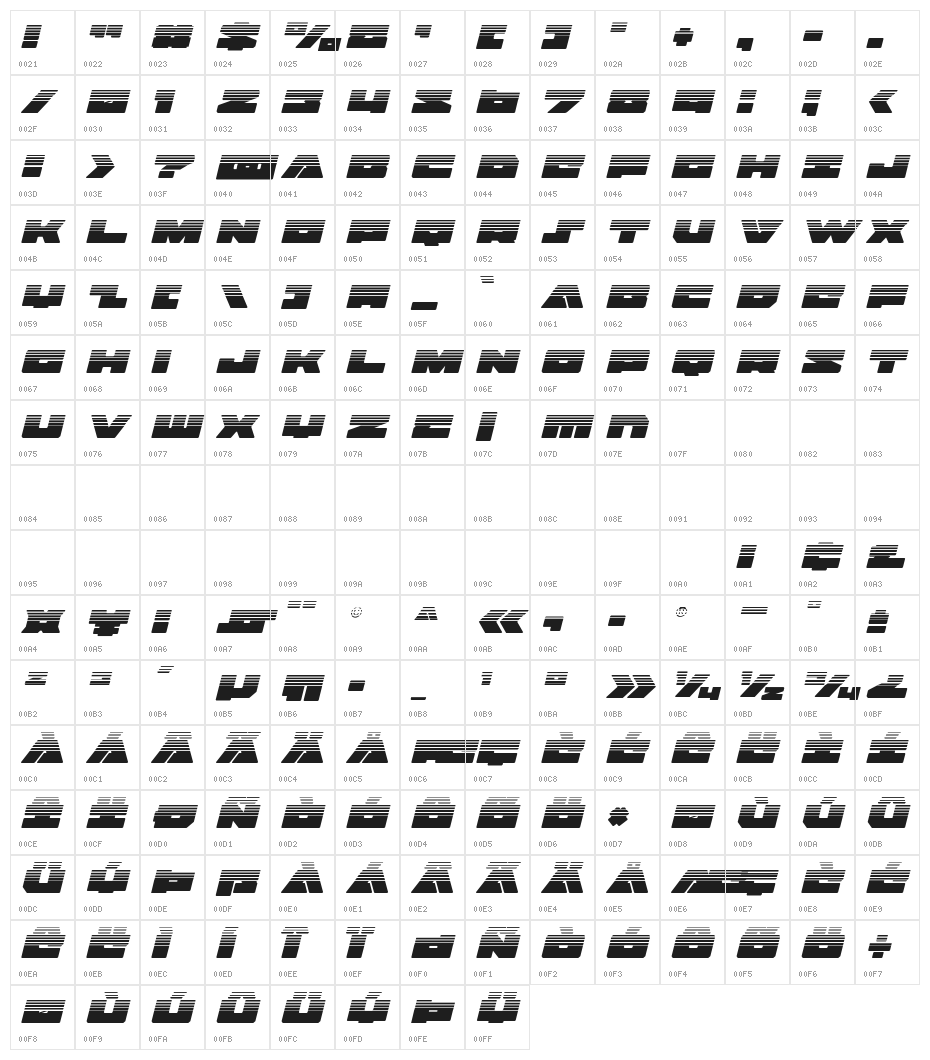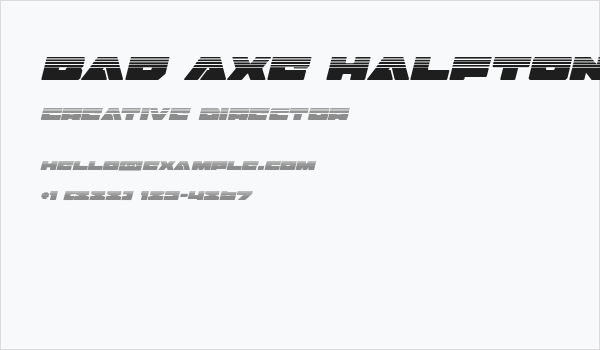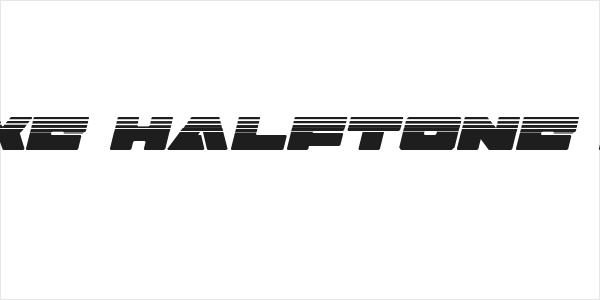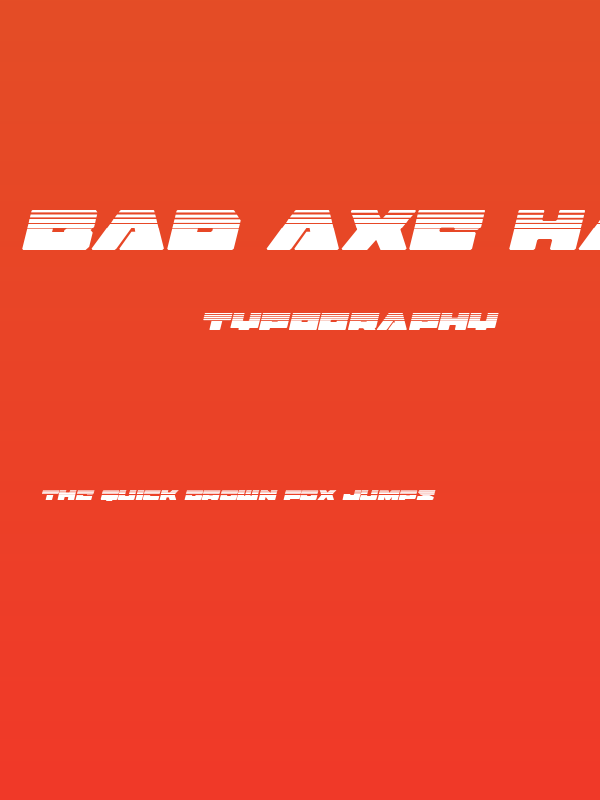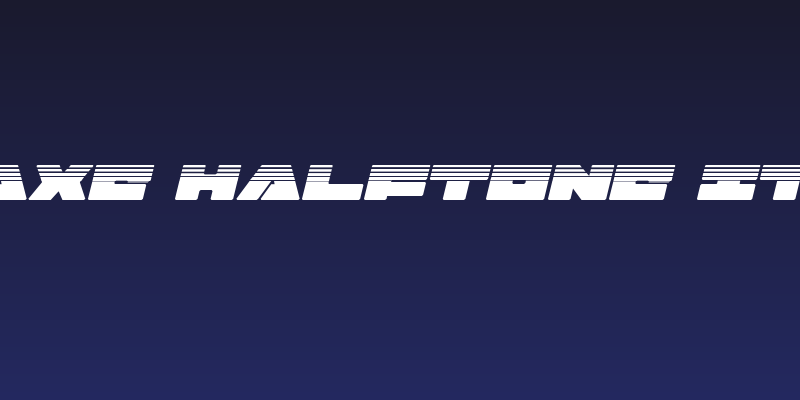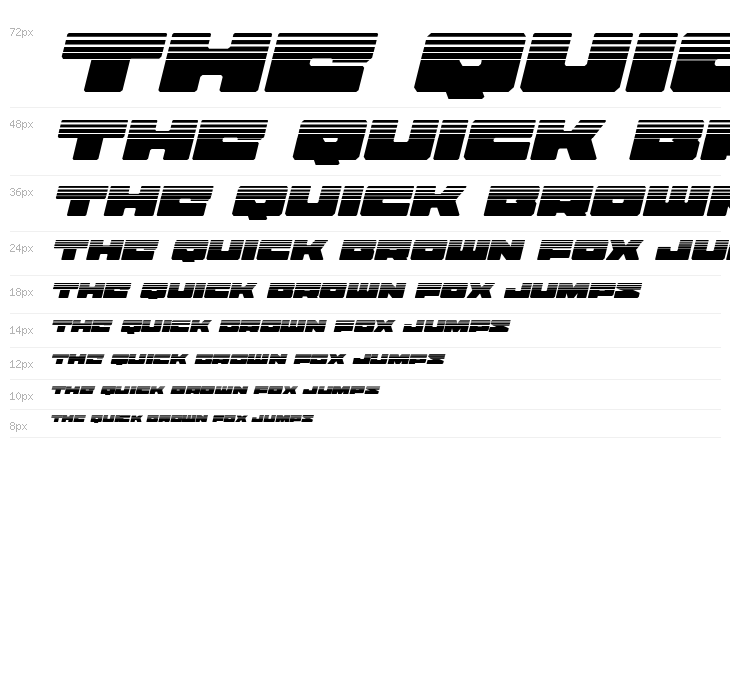
Bad Axe Halftone Italic Font
Bad Axe Halftone Italic Description
This font features a bold, geometric design with a distinct halftone effect that gives it a dynamic and modern appearance. The characters are constructed with horizontal lines that create a sense of movement and energy. The uppercase and lowercase letters maintain a consistent style, with sharp angles and a strong presence. The numbers and special characters follow the same design principles, ensuring uniformity across all glyphs. This font's unique style makes it stand out, perfect for projects that require a futuristic or tech-inspired look.
| Proposed Projects | Suitable for use in technology branding, futuristic posters, video game titles, and any project that requires a bold, modern aesthetic. |